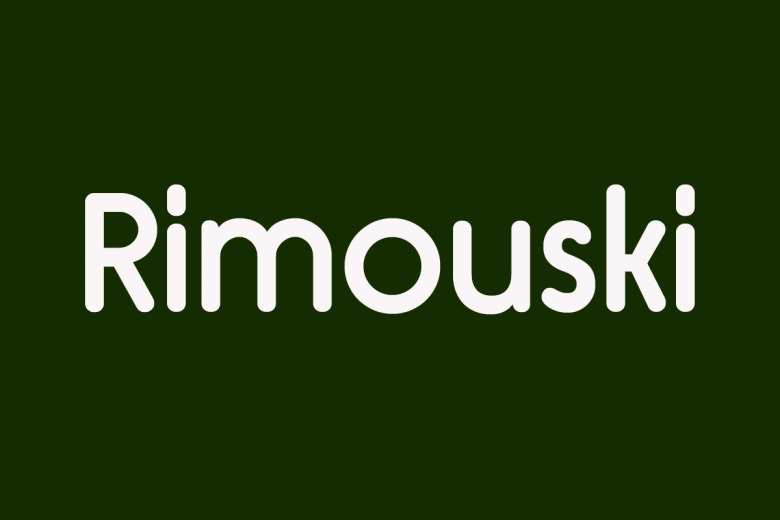
Rimouski Font
Rimouski is a rounded geometric font. Use the OpenType “stylistic alternates” feature to unleash a slew of strangely slanted characters. The regular desktop license for Rimouski Semi-Bold is free but there are 4 other weights available: Ultra-Light, Light, Regular, and Bold.